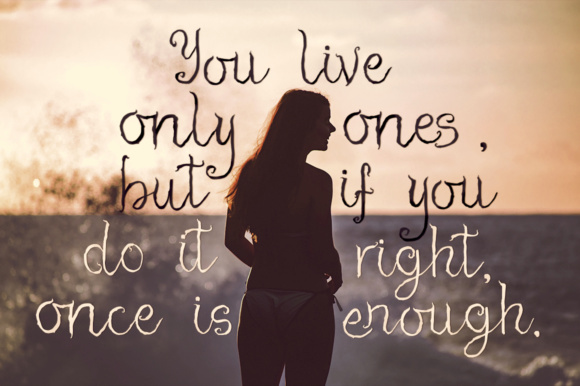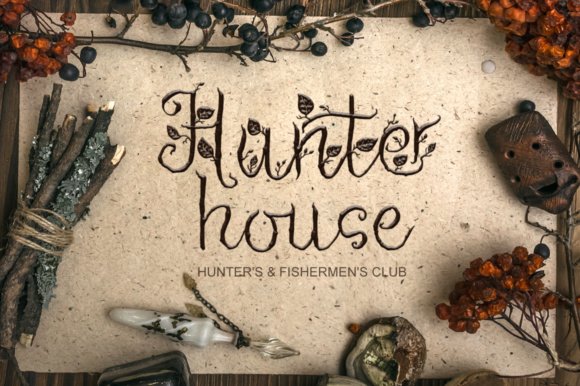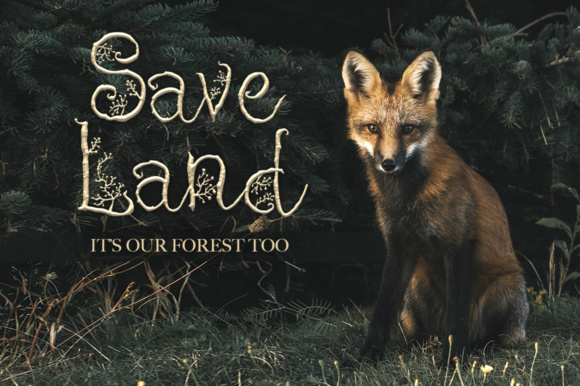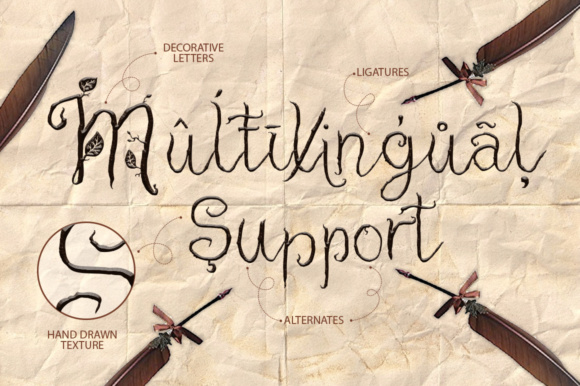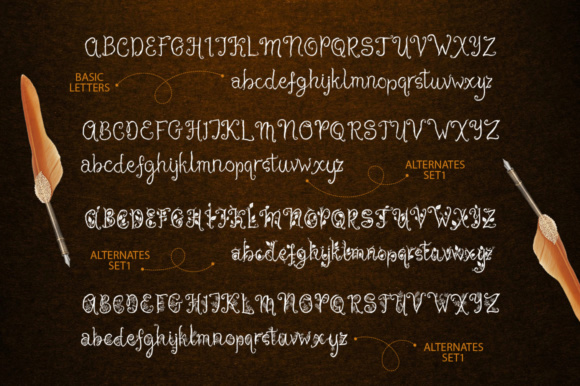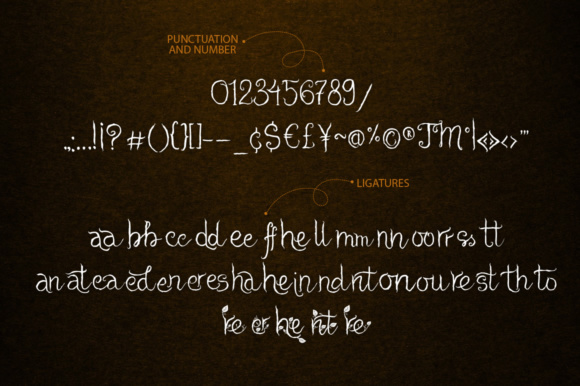
Introducing Cheshire Font: Elevate Your Designs with Elegance and Versatility
Are you on the hunt for a font that can add a touch of sophistication and whimsy to your design projects? Look no further than the Cheshire Font, a stunning script font that is sure to captivate your audience. With its hand-drawn texture, extensive ligatures, and alternate sets, this font is perfect for a wide range of applications, from typographic projects and greeting cards to t-shirts, posters, mugs, and branding materials.
What Makes Cheshire Font So Special?
Cheshire Font boasts a unique blend of elegance and playfulness, making it an ideal choice for designers and crafters who want to add a personal touch to their work. Here are just a few features that set it apart:
- Hand-Drawn Texture: Cheshire Font features a beautiful, hand-drawn texture that gives it a warm, organic feel. This texture adds depth and character to your designs, making them stand out from the crowd.
- Ligatures and Alternate Sets: With numerous ligatures and three alternate sets for the entire alphabet, Cheshire Font offers endless possibilities for creative expression. Whether you’re looking to add a touch of whimsy or create a more formal design, this font has got you covered.
Cheshire Font is incredibly versatile, making it suitable for a wide range of projects, including:
- Typographic Projects: Whether you’re working on a poster, brochure, or business card, Cheshire Font is the perfect choice for adding a touch of elegance and sophistication.
- Greeting Cards: Add a personal touch to your greeting cards with Cheshire Font’s beautiful, hand-drawn texture and extensive ligatures.
- T-Shirts and Apparel: Create stunning designs for t-shirts, hoodies, and other apparel with Cheshire Font’s unique and eye-catching style.
- Posters and Flyers: Make your posters and flyers stand out with Cheshire Font’s bold, yet elegant design.
- Mugs and Branding Materials: Add a touch of personality to your mugs, water bottles, and other branding materials with Cheshire Font’s whimsical and playful style.
- Photography Overlays: Use Cheshire Font to add a touch of sophistication and elegance to your photography overlays.
Tips and Tricks for Getting the Most Out of Cheshire Font
To help you get the most out of Cheshire Font, here are a few tips and tricks to keep in mind:
- Experiment with Different Sizes: Cheshire Font looks great in a variety of sizes, from small and delicate to large and bold. Don’t be afraid to experiment and find the perfect size for your project.
- Play with Ligatures: With numerous ligatures to choose from, Cheshire Font offers endless possibilities for creative expression. Take some time to explore the different ligatures and find the ones that work best for your project.
- Mix and Match: Don’t be afraid to mix and match different elements of Cheshire Font to create a unique and eye-catching design. Try pairing different alternate sets or using ligatures to add a touch of whimsy.